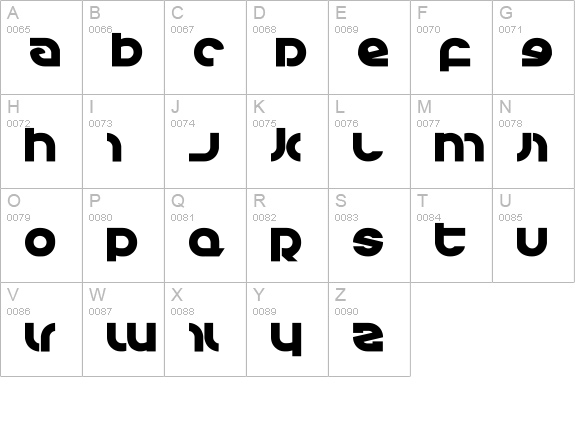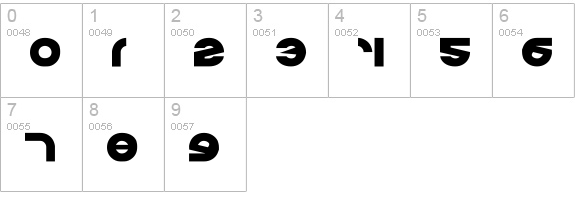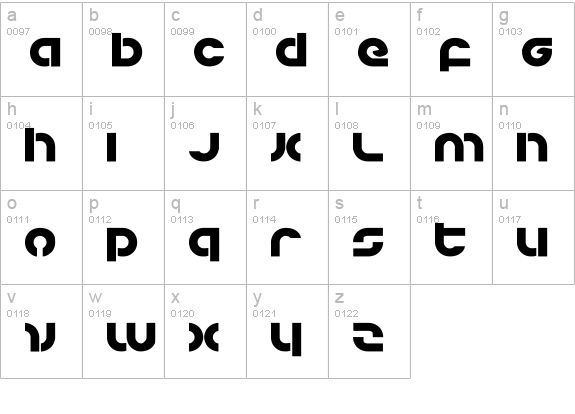
Kovacs Font Details
Kovacs font is a sleek and modern typeface that exudes sophistication and elegance. With its clean lines and contemporary design, Kovacs font is perfect for a wide range of design projects, from branding to editorial layouts. This versatile font offers a balance of professionalism and creativity, making it a must-have for any designer's toolkit. The best part? Kovacs font is available for free download at FontsMarket.com. This means you can access this high-quality font without having to break the bank. Whether you're working on a personal project or a client's design, Kovacs font will elevate your work and give it a polished and professional look. Don't miss out on this amazing opportunity to enhance your design projects with Kovacs font. Download it for free today at FontsMarket.com and take your designs to the next level!